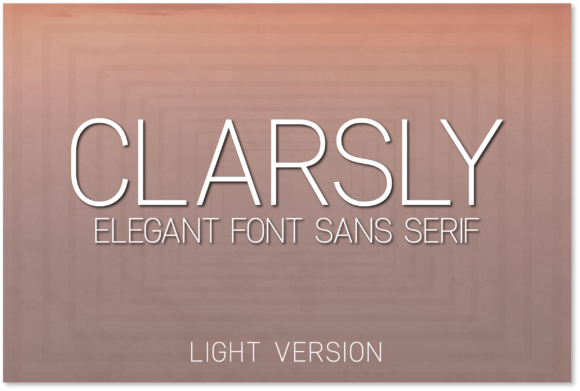
Clarsly Light Font
Meet Clarsly Light, the font that effortlessly combines minimalism and elegance. This sans-serif creation by Huntype is a versatile masterpiece designed to elevate your designs, whether it's for body text or captivating headlines.
Clarsly Light's clean and modern lines exude a timeless sophistication, adding an air of distinction to any project. Its wide range of applications makes it the perfect choice for designers seeking a font that seamlessly adapts to diverse contexts.
Immerse yourself in the beauty of Clarsly Light's characters, carefully crafted to provide exceptional legibility and visual appeal. The font's minimalist aesthetic ensures that your text remains clear and easy to read, even in the most complex layouts.
With Clarsly Light, you have the power to transform ordinary designs into extraordinary experiences. Its timeless charm and versatility make it the ideal font for creating logos, branding materials, website designs, and any project that demands a touch of elegance and modernity.
Unleash your creativity and let Clarsly Light illuminate your designs. Its minimalist beauty and wide range of applications make it the perfect font for designers seeking a timeless and versatile solution.